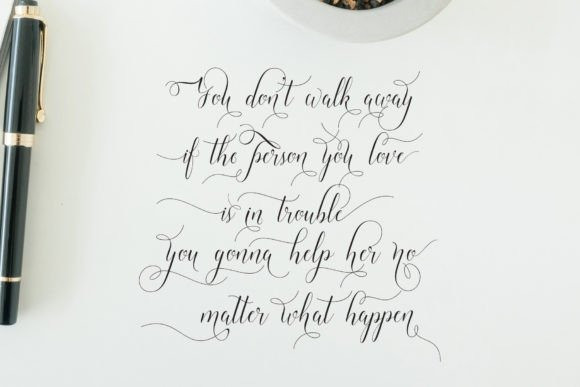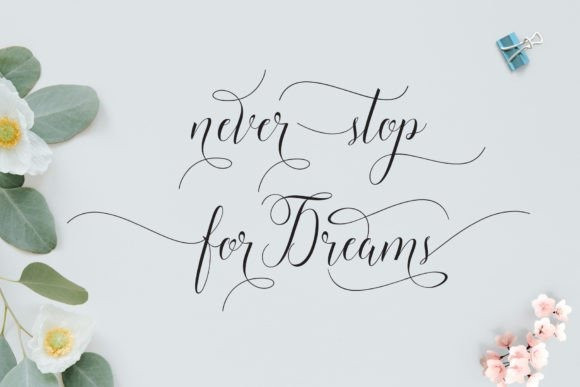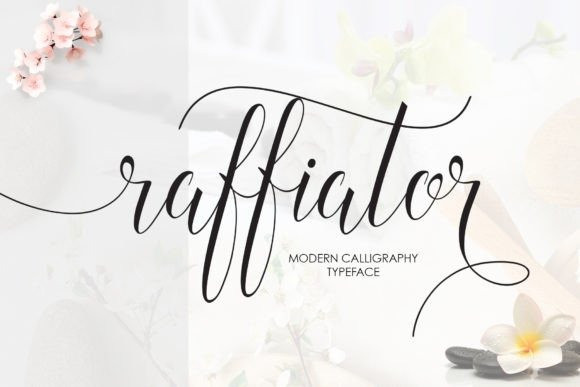
Raffiator Font
Raffiator Font is a beautiful handdrawn calligraphy style font. The Raffiatorfont features modern, smooth and classic characters. The wavy letters are designed to create a flowing feeling when you type your works.
The Raffiator font has 704 glyphs, which is enough to create something unique every time you use it.